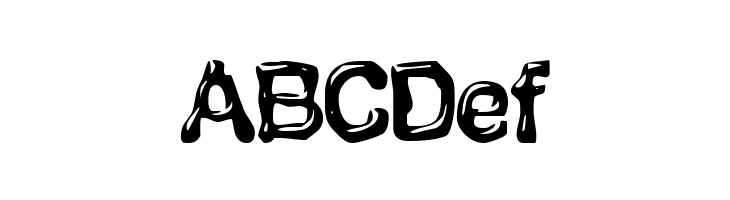
Drive Chrome Italic Font
- Font: Drive Chrome Italic
( Font by Ben Nathan - www.hafontia.com )
A bold, dynamic font with fluid, organic shapes resembling liquid or dripping paint.